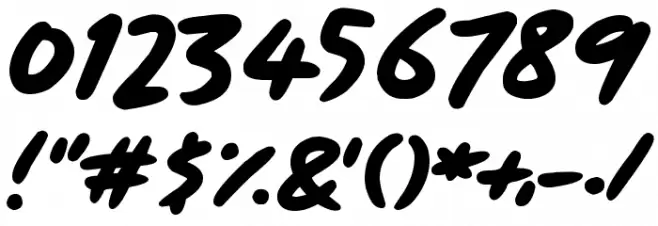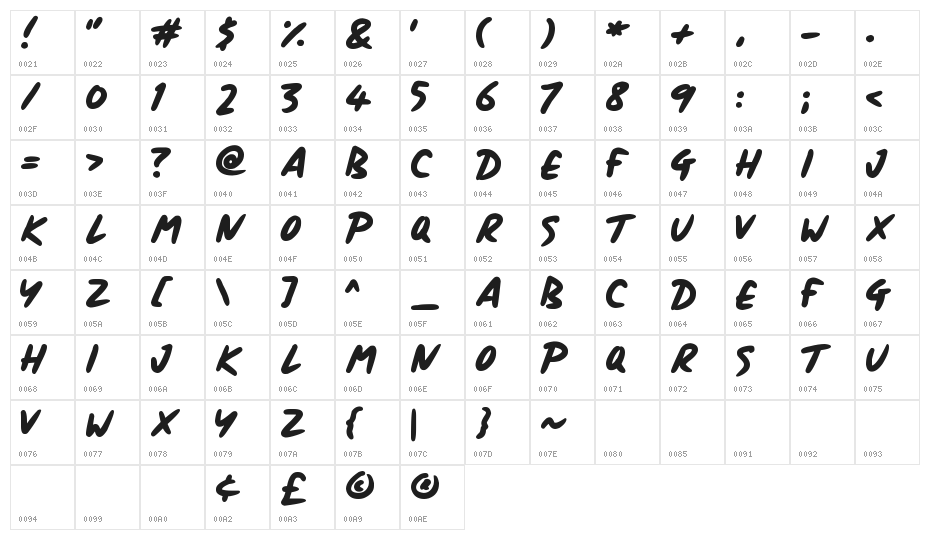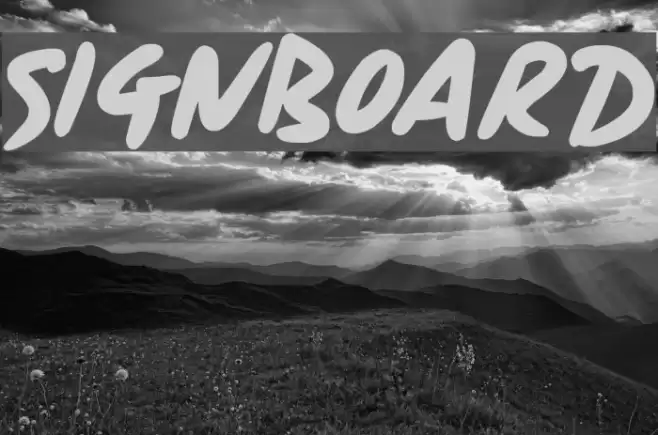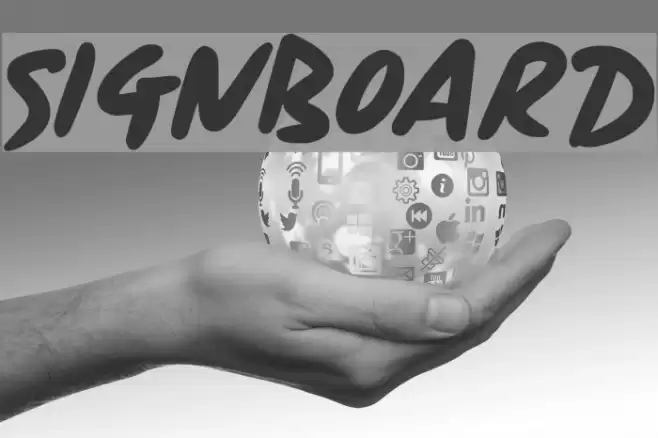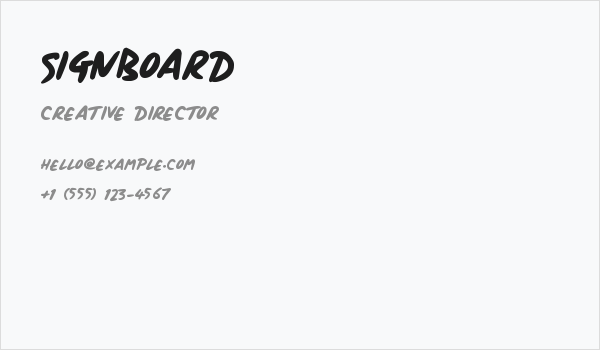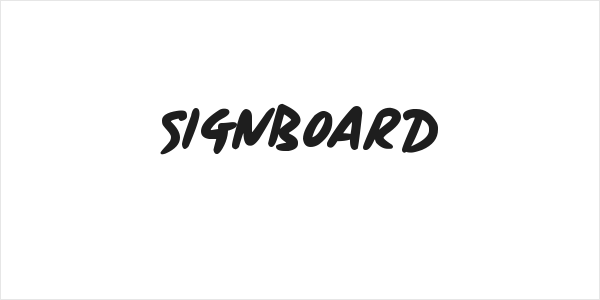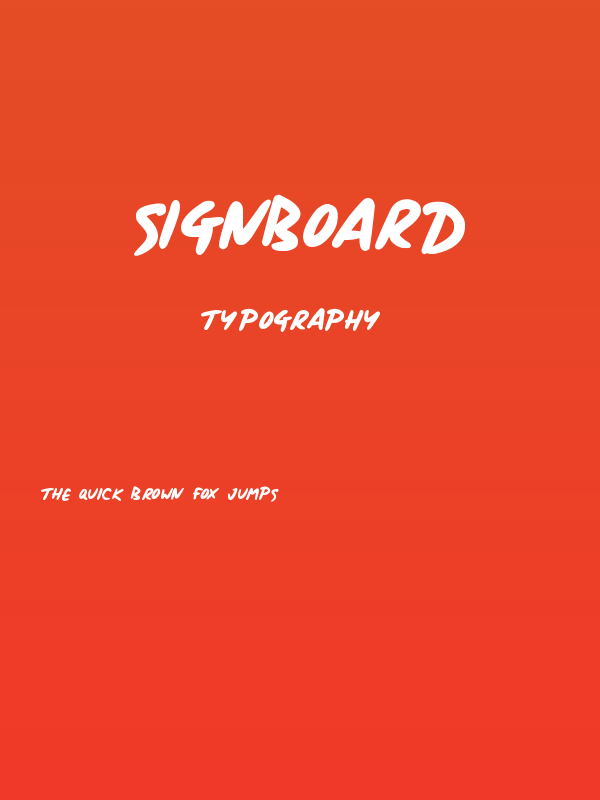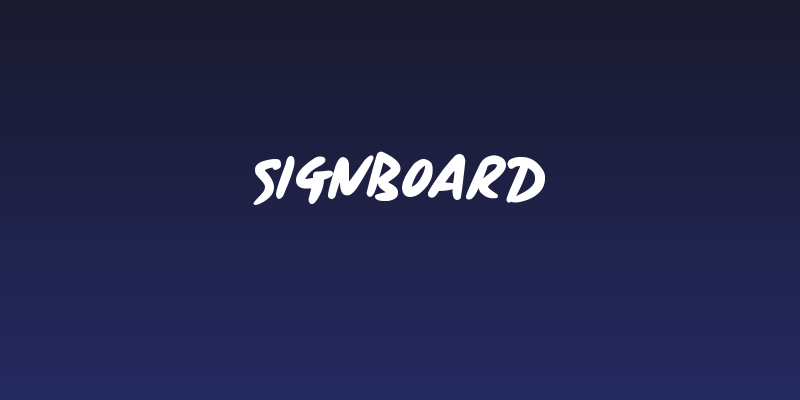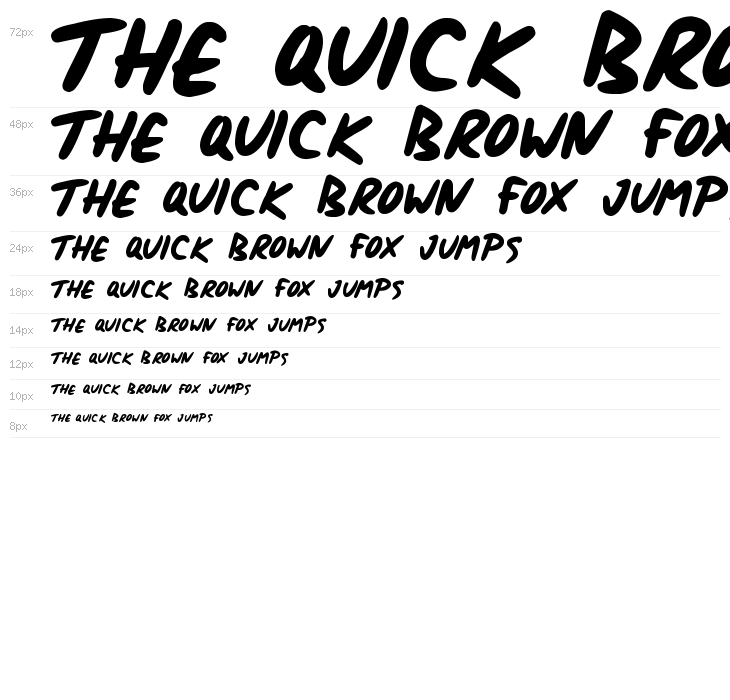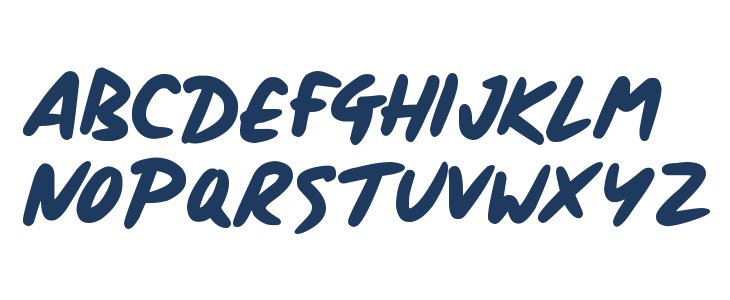
Signboard Font
Signboard Description
This font features a bold, handwritten style with a playful and energetic appearance. The characters are slightly slanted, giving a sense of movement and dynamism. The strokes are thick and consistent, providing a strong visual impact. The letters are well-spaced, ensuring readability while maintaining a casual and informal tone. The font includes both uppercase and lowercase letters, numerals, and a variety of special characters, making it versatile for different design needs. Its boldness and unique style make it suitable for projects that require a personal touch or a standout headline.